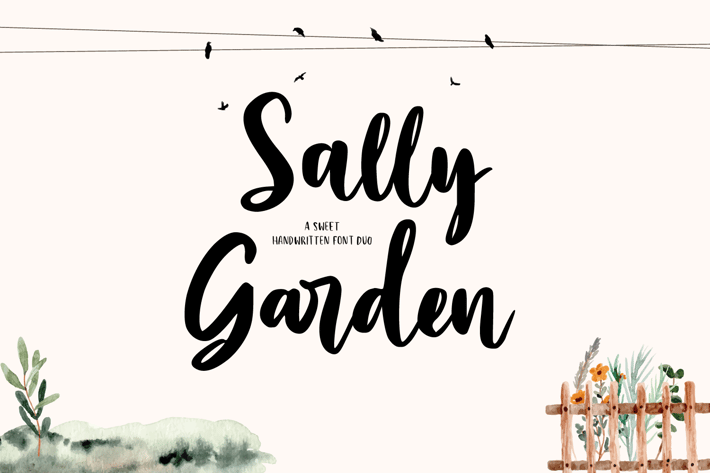
Sally Garden - A Sweet Font Duo
Sally Garden – A Sweet Handwriting Font Duo. It comes with an elegant and modern style which is perfect to make any design stand out! This font is ideal for elegant branding projects, greeting cards, packaging, social media, logo design and of course, wedding invitations.
Sally Garden Type Features:
- Uppercase -Lowercase
- Numerals & Punctuations
- Suitable for Headlines, Logotypes, Signs, Posters, Letterheads, T-Shirt, and many more.
- Support International Language